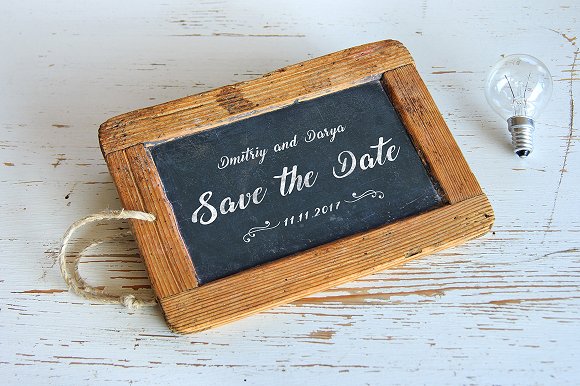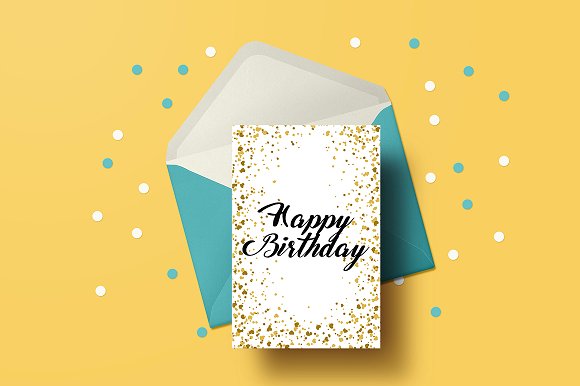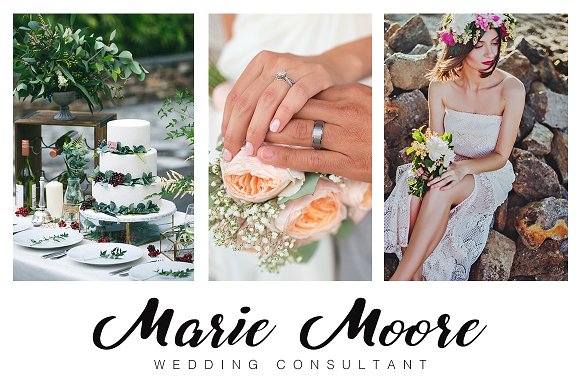
Boronic Font
Borinic – a new fresh handmade calligraphy font. Very suitable for greeting cards, branding materials, business cards, quotes, posters, and more!
This font are perfect for wedding postcard. Or you can create perfect and unique design of your logo, blog, stationery, marketing, magazines and more 🙂